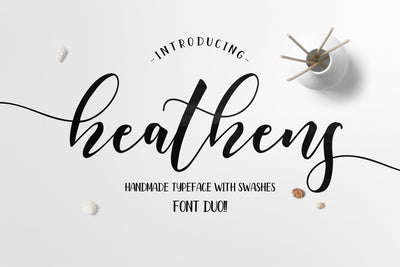
Heathens Font Duo
Introducing!
Heathens Script - a new fresh & modern script with a handmade calligraphy style, decorative characters and a dancing baseline! So beautiful on invitation like greeting cards, branding materials, business cards, quotes, posters, and more design concept!
Alternates
- Unique ligatures
- Stylistic Alternates
- Stylistic sets